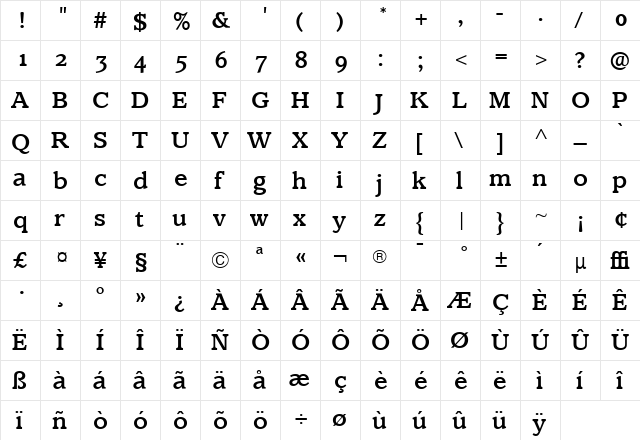
ClaremontMediumOS Roman
ClaremontMediumOS takes a measured approach to typography — its balanced proportions and neutral character make it a reliable workhorse for both digital and print work.